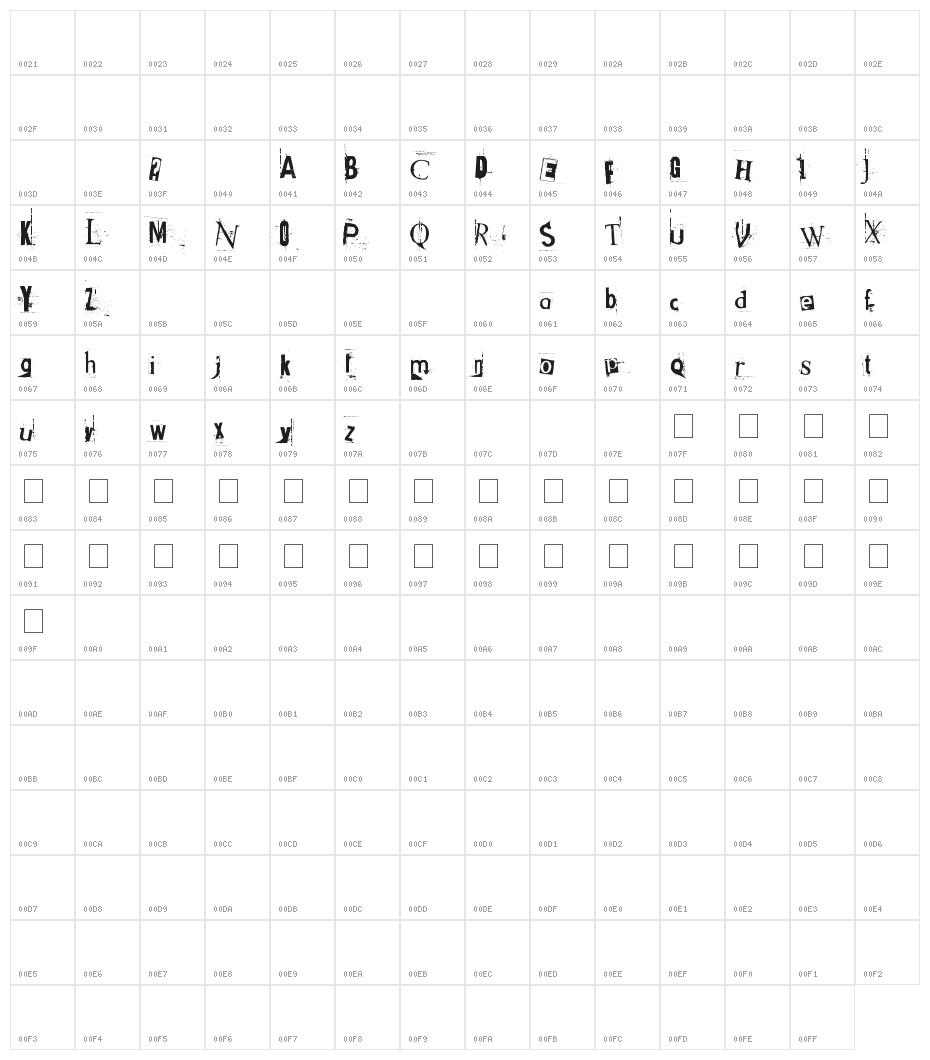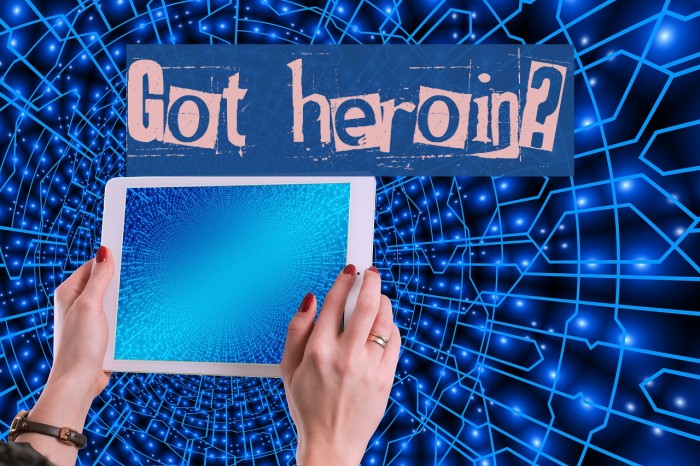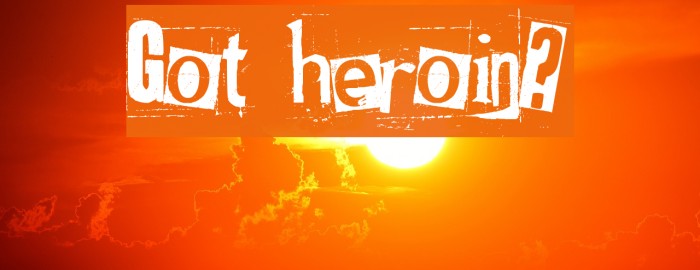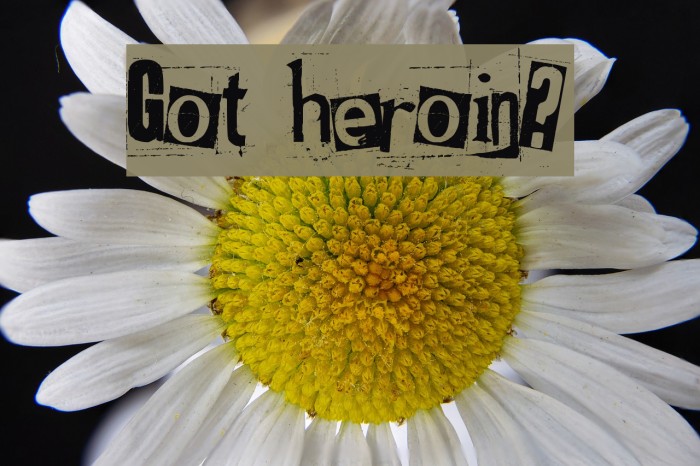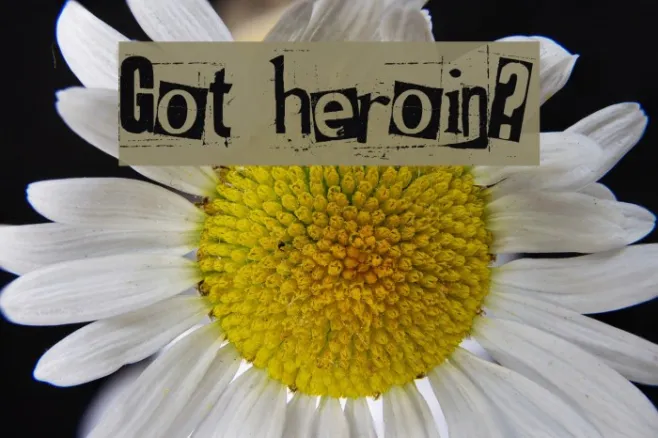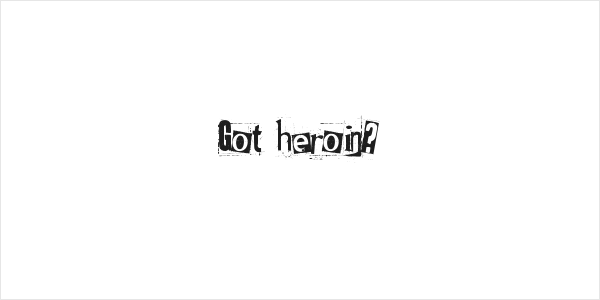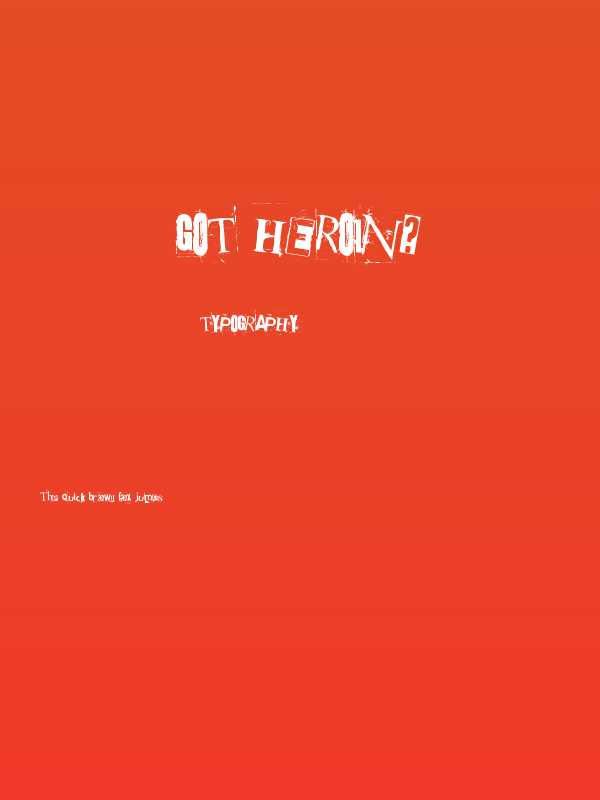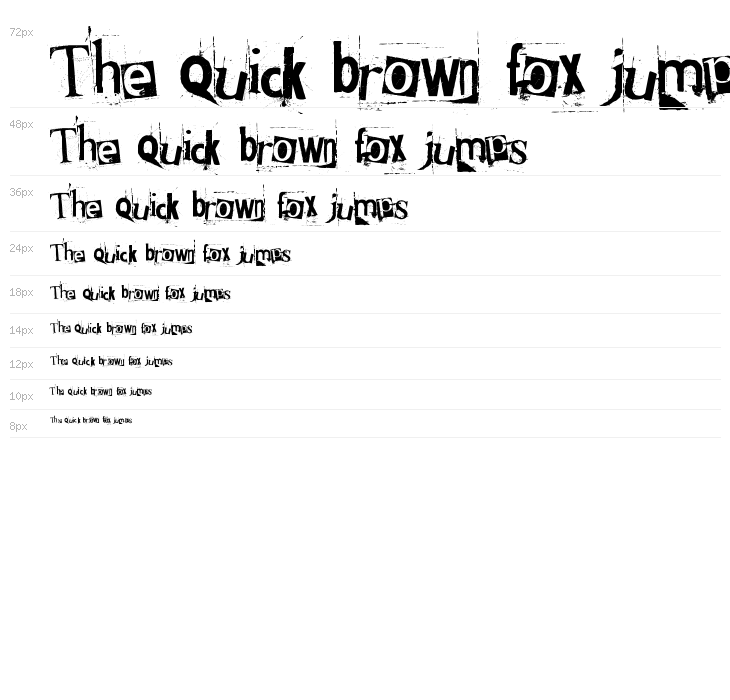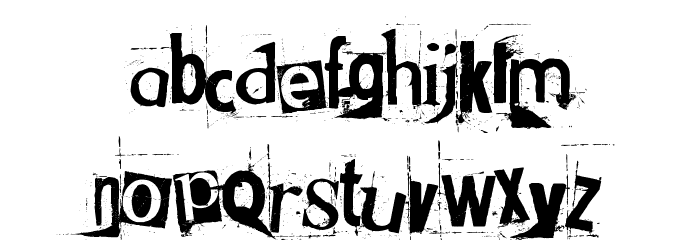
Got heroin? Font
Got heroin? Description
This font exhibits a grungy, distressed style with a chaotic and uneven appearance. The characters are irregularly shaped, with varying thicknesses and rough edges, giving it a raw, edgy feel. The uppercase and lowercase letters maintain this distressed look, with some letters appearing more eroded than others. The numbers and special characters follow the same aesthetic, contributing to an overall sense of disarray and artistic imperfection. This font is ideal for projects that require a rebellious or underground vibe, such as music album covers, posters, or urban-themed designs.
| Overall Style | Grunge, Edgy, Artistic |
| Proposed Projects | Ideal for music album covers, posters, urban-themed designs, and rebellious branding. |